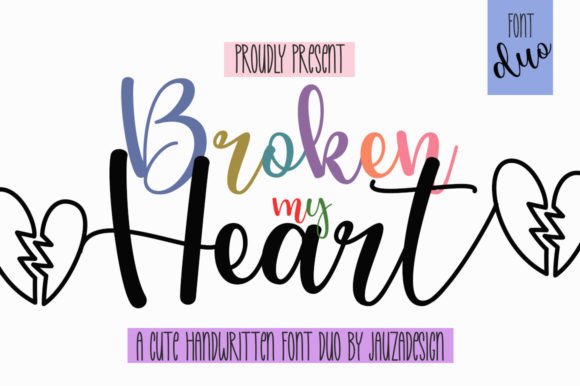
Discover the Charm of Broken My Heart Font: A Sweet and Friendly Handwritten Font
Are you looking for a font that can add a touch of sweetness and friendliness to your designs? Look no further than Broken My Heart Font, a beautiful handwritten font that is perfect for a wide range of creative projects. In this article, we’ll take a closer look at the features and benefits of Broken My Heart Font, and explore how it can be used to elevate your designs.
What is Broken My Heart Font?
Broken My Heart Font is a sweet and friendly handwritten font that is designed to add a personal touch to your designs. Its natural and unique style makes it incredibly fitting for a large pool of designs, from style quotes and wedding cards to magazines, fashion, creative branding, album covers, book covers, movie titles, and more.
One of the standout features of Broken My Heart Font is its PUA encoding, which means that you can access all the glyphs and ligatures with ease. This makes it easy to use the font in a variety of contexts, and to create beautiful and unique designs that stand out from the crowd.
The Benefits of Using Broken My Heart Font
So why should you choose Broken My Heart Font for your next design project? Here are just a few of the benefits of using this beautiful font:
- Unique and eye-catching: Broken My Heart Font has a unique and eye-catching style that is sure to grab attention. Its natural and handwritten look makes it perfect for designs that need a personal touch.
- Versatile: This font is incredibly versatile, and can be used for a wide range of design projects. Whether you’re creating a style quote, a wedding card, or a magazine, Broken My Heart Font is a great choice.
- Easy to use: Broken My Heart Font is PUA encoded, which makes it easy to access all the glyphs and ligatures. This means that you can focus on creating beautiful designs, rather than struggling with complicated font issues.
- High-quality: Broken My Heart Font is a high-quality font that is designed to produce crisp and clear results. Whether you’re working on a digital project or a print project, this font is sure to deliver.
How to Use Broken My Heart Font
So how can you use Broken My Heart Font in your designs? Here are a few ideas to get you started:
- Style quotes: Broken My Heart Font is perfect for style quotes, and can add a touch of sweetness and friendliness to your inspirational quotes.
- Wedding cards: This font is also great for wedding cards, and can add a romantic and personal touch to your wedding stationery.
- Magazines: Broken My Heart Font can be used to create eye-catching headlines and titles for magazines, and can add a touch of personality to your editorial designs.
- Fashion: This font is perfect for fashion designs, and can be used to create stylish and eye-catching logos, labels, and branding materials.
- Creative branding: Broken My Heart Font can be used to create unique and memorable branding materials, such as logos, business cards, and letterheads.
- Album covers: This font is great for album covers, and can add a touch of personality and style to your music designs.
- Book covers: Broken My Heart Font can be used to create eye-catching book covers, and can add a touch of sweetness and friendliness to your book designs.
- Movie titles: This font is perfect for movie titles, and can add a touch of glamour and sophistication to your film designs.
The Power of PUA Encoding
One of the standout features of Broken My Heart Font is its PUA encoding. But what does this mean, and how can it benefit your designs?
PUA encoding stands for “Private Use Area” encoding, and it refers to a range of Unicode characters that are reserved for private use. In the case of Broken My Heart Font, PUA encoding means that you can access all the glyphs and ligatures with ease, and use them in your designs without any complicated font issues.
This is especially useful for designers, who need to be able to access a wide range of characters and glyphs in order to create beautiful and unique designs. With PUA encoding, you can focus on creating stunning designs, rather than struggling with font issues.
Tips for Using Broken My Heart Font
Here are a few tips for using Broken My Heart Font in your designs:
- Experiment with different sizes: Broken My Heart Font looks great in a range of sizes, from small and delicate to large and bold. Experiment with different sizes to find the one that works best for your design.
- Play with colors: This font looks great in a range of colors, from bright and bold to soft and pastel. Experiment with different colors to find the one that works best for your design.
- Use it with other fonts: Broken My Heart Font can be paired with other fonts to create stunning and unique designs. Experiment with different font combinations to find the one that works best for your design.
- Don’t be afraid to get creative: Broken My Heart Font is a versatile font that can be used in a wide range of designs. Don’t be afraid to get creative and try new things – you might be surprised at the amazing designs you can create!
- What is PUA encoding? PUA encoding stands for “Private Use Area” encoding, and it refers to a range of Unicode characters that are reserved for private use.